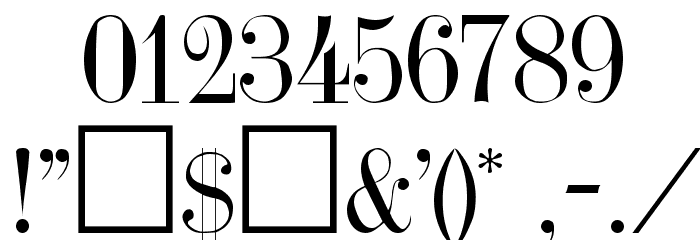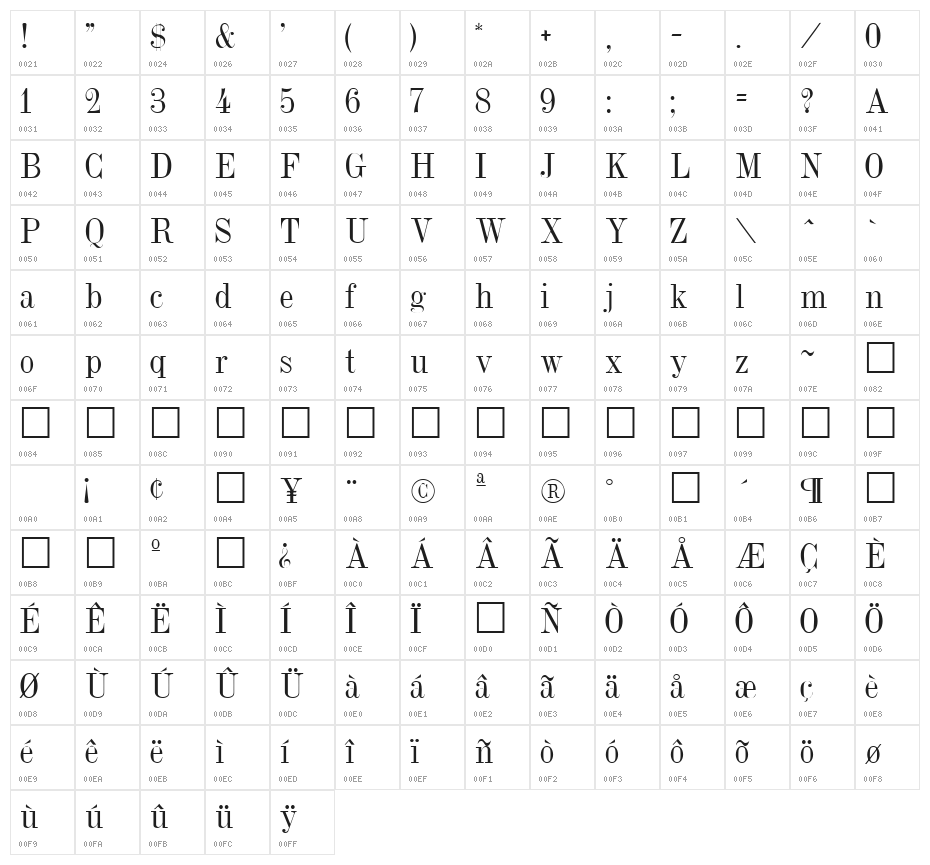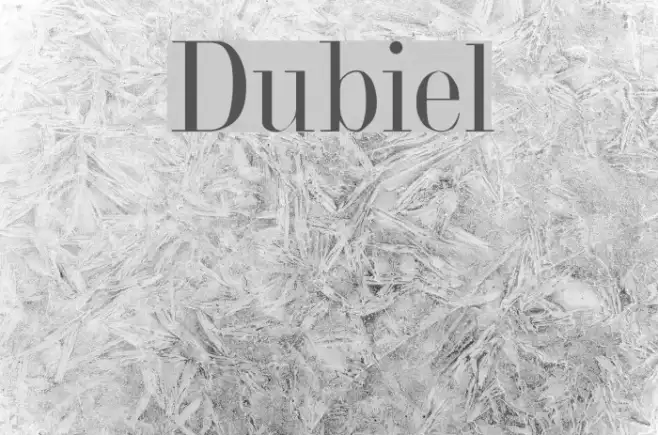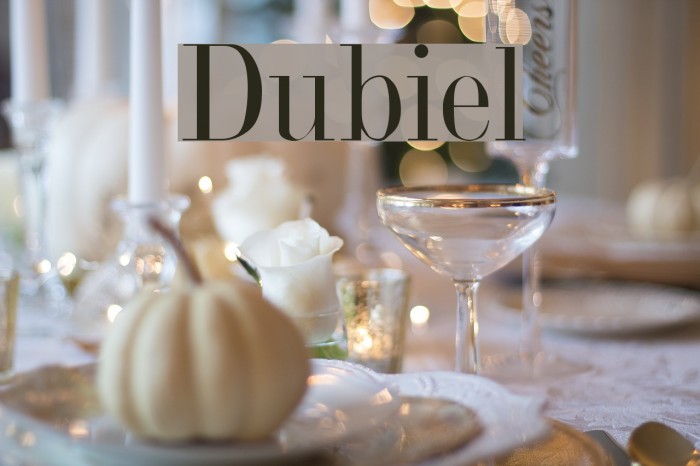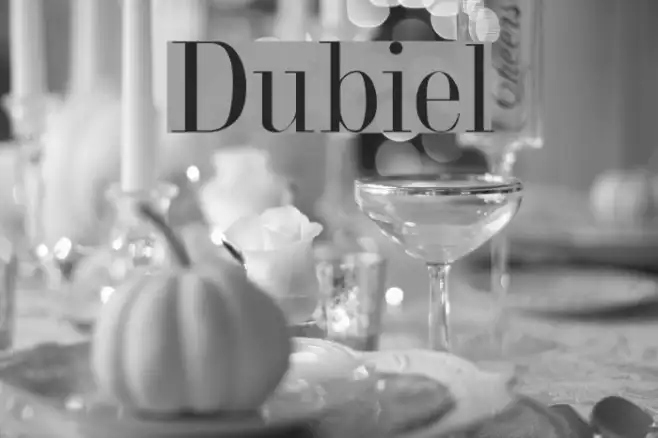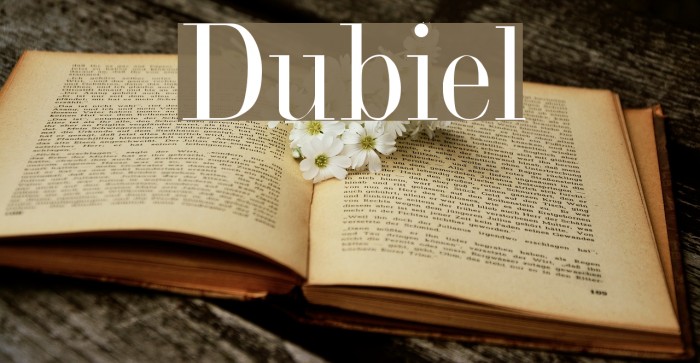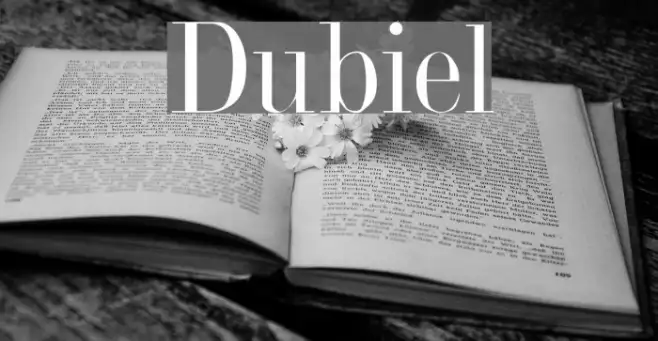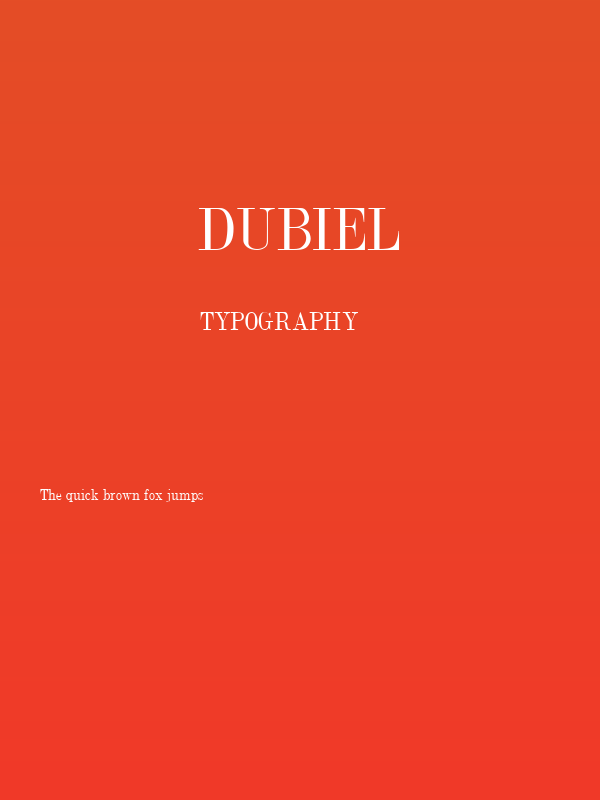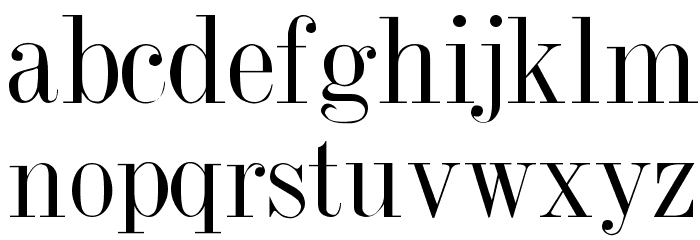
Dubiel Font
Dubiel Description
This font features a classic serif style with elegant, thin strokes and high contrast between thick and thin lines. The uppercase letters are tall and stately, while the lowercase letters maintain a traditional form with a slight modern twist. The numerals are proportional and align well with the overall design, providing a harmonious look. Special characters are distinct and maintain the serif style, adding to the font's versatility. The overall appearance is sophisticated and timeless, making it suitable for a variety of applications.
Overall StyleClassic